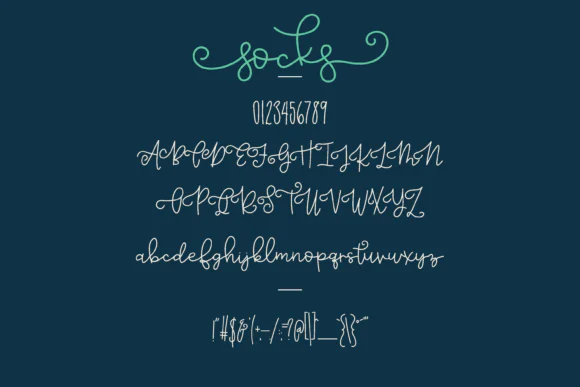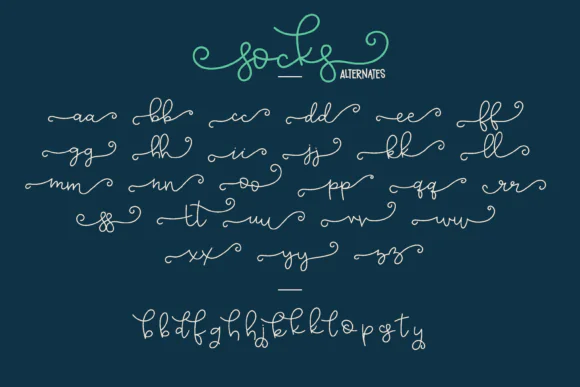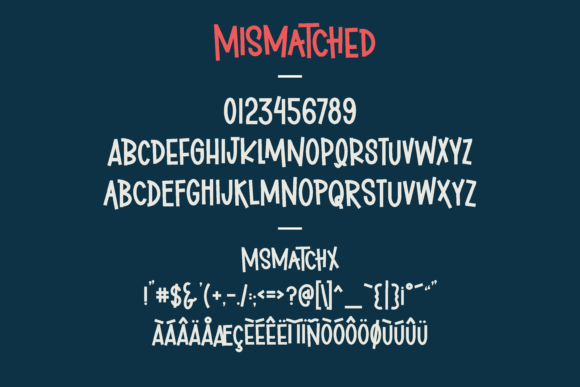
Mismatched Socks Font Duo – Quirky Playful Uppercase & Script Typeface with Alternates and Swashes for Crafting, Branding, Invitations, Stickers, Quotes & Whimsical Creative Designs
Add cheerful personality, playful contrast, and handmade charm to your designs with Mismatched Socks Font, a quirky font duo that combines bold uppercase lettering with a flowing script companion. This unique pairing creates a fun mismatched style that feels creative, friendly, and full of character.
The bold uppercase font is perfect for eye-catching titles, logos, posters, stickers, product labels, and statement designs, while the flowing script adds softness, movement, and a personal handwritten touch. Together, they create a versatile font combination that works beautifully for playful branding, invitations, greeting cards, craft projects, social media graphics, printable wall art, party designs, and digital products.
Mismatched Socks Font also includes alternates and bonus swashes, giving you extra creative freedom to customize your typography and make each design feel more unique and expressive. Whether you are creating a cheerful brand logo, whimsical invitation, cute sticker pack, playful quote design, or fun craft artwork, this font duo helps your project stand out with warmth and charm.
Key Features
• Quirky and playful font duo
• Bold uppercase display characters
• Flowing script companion font
• Fun mismatched style with cheerful personality
• Includes alternates and bonus swashes
• Great for customization and personal design touches
• Perfect for crafting, branding, invitations, and whimsical projects